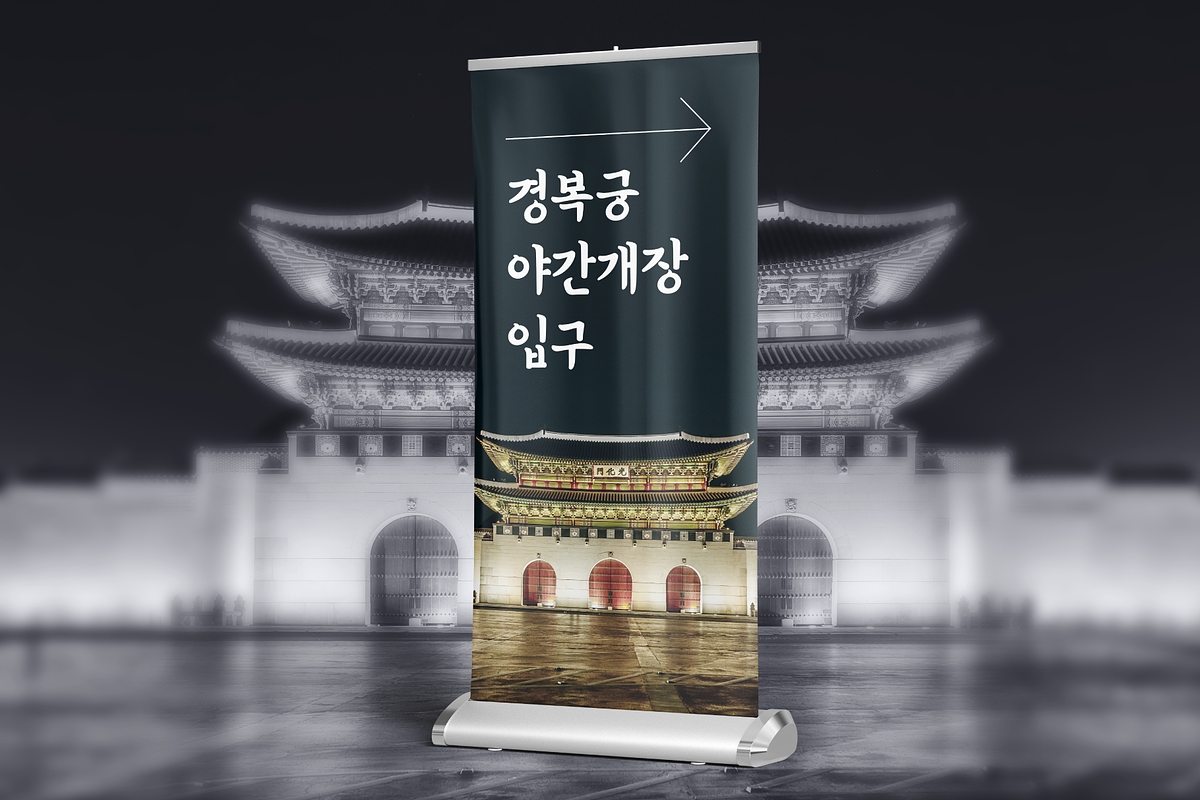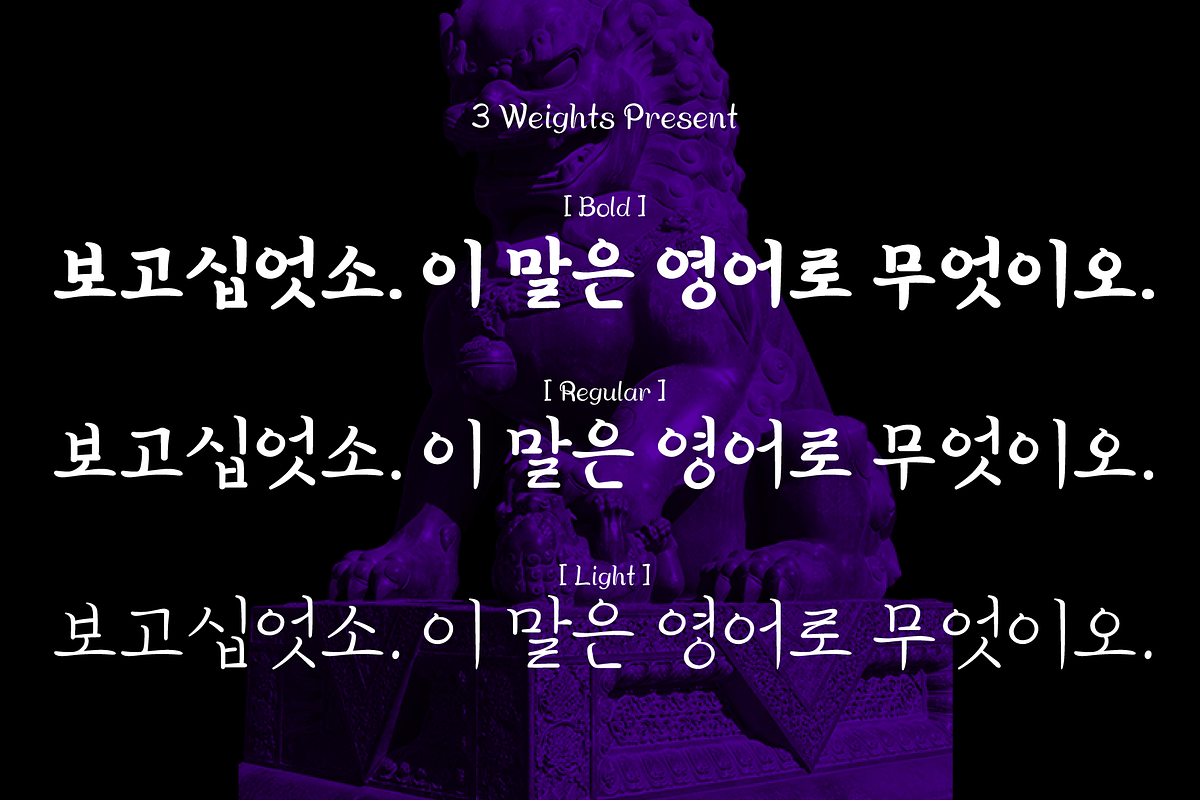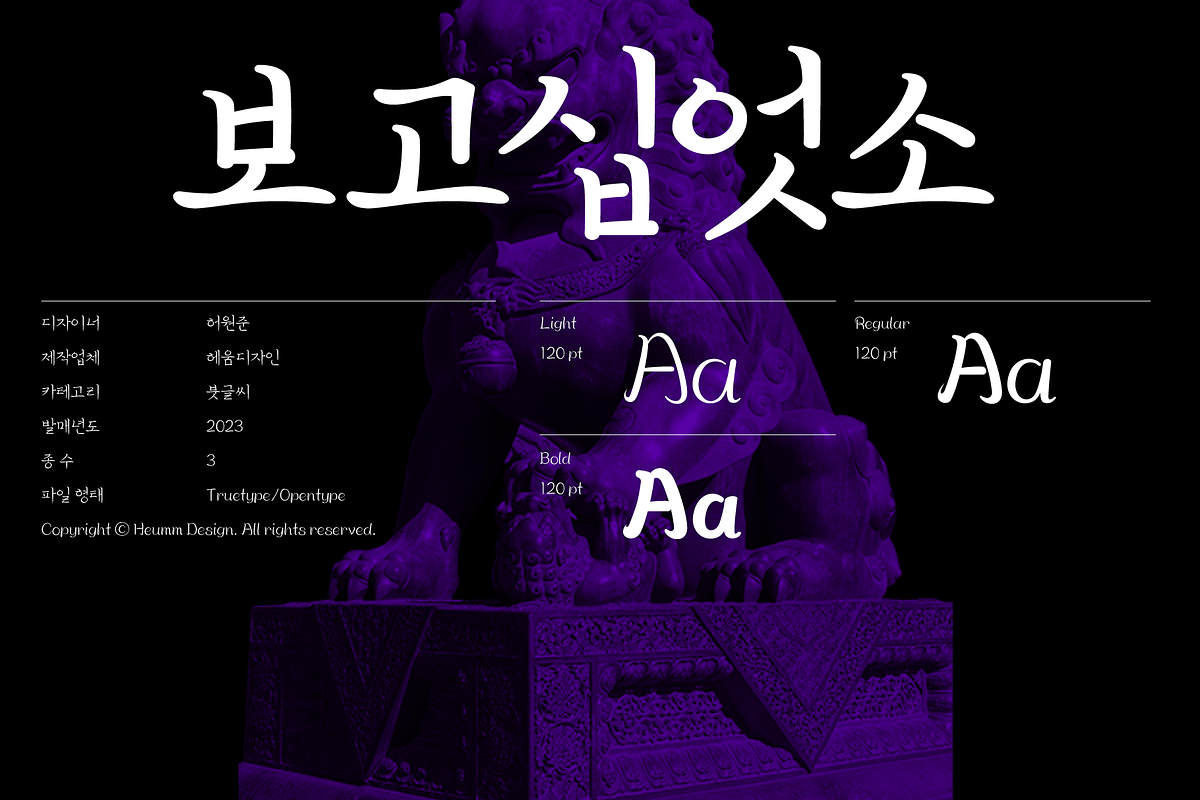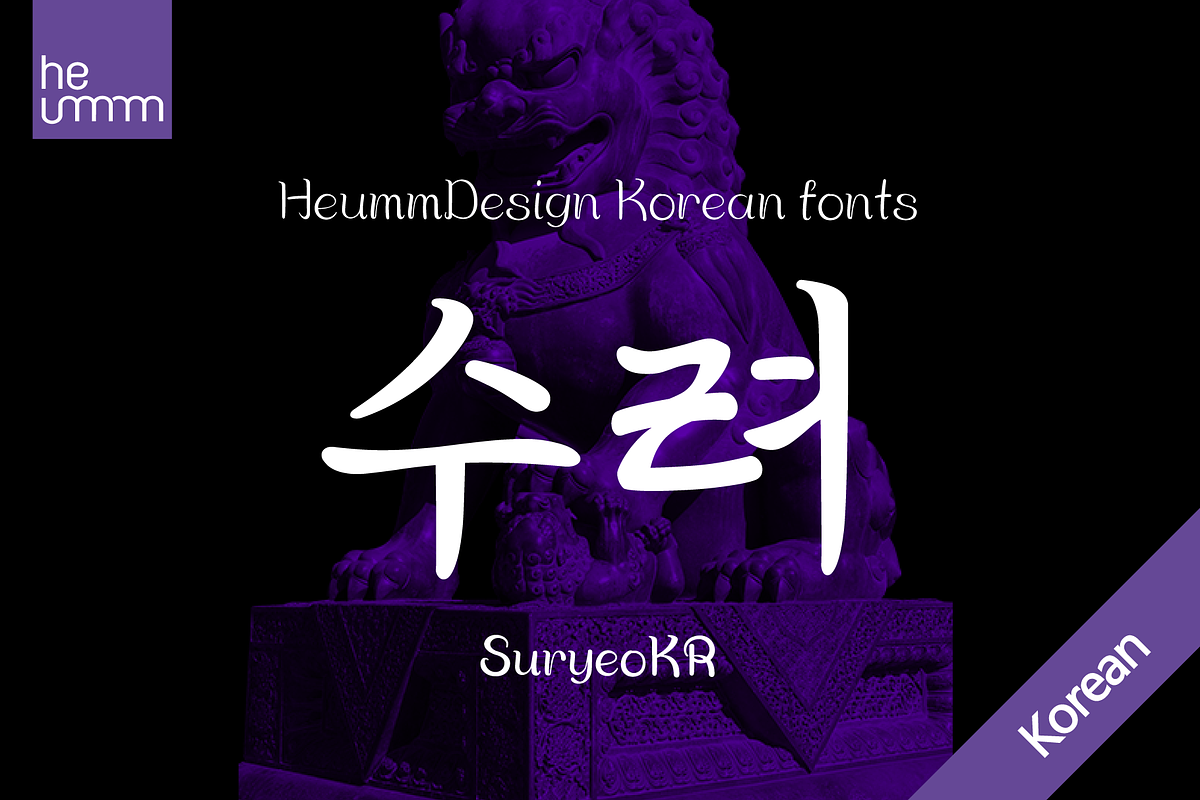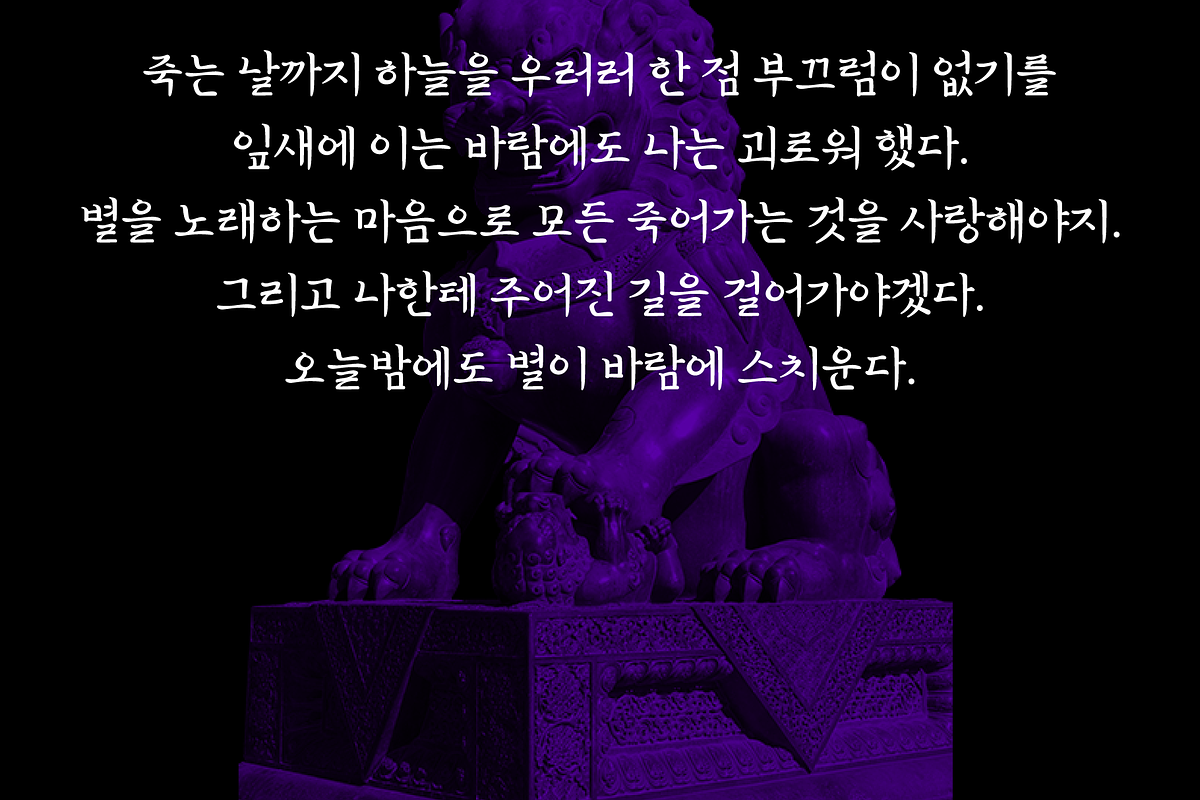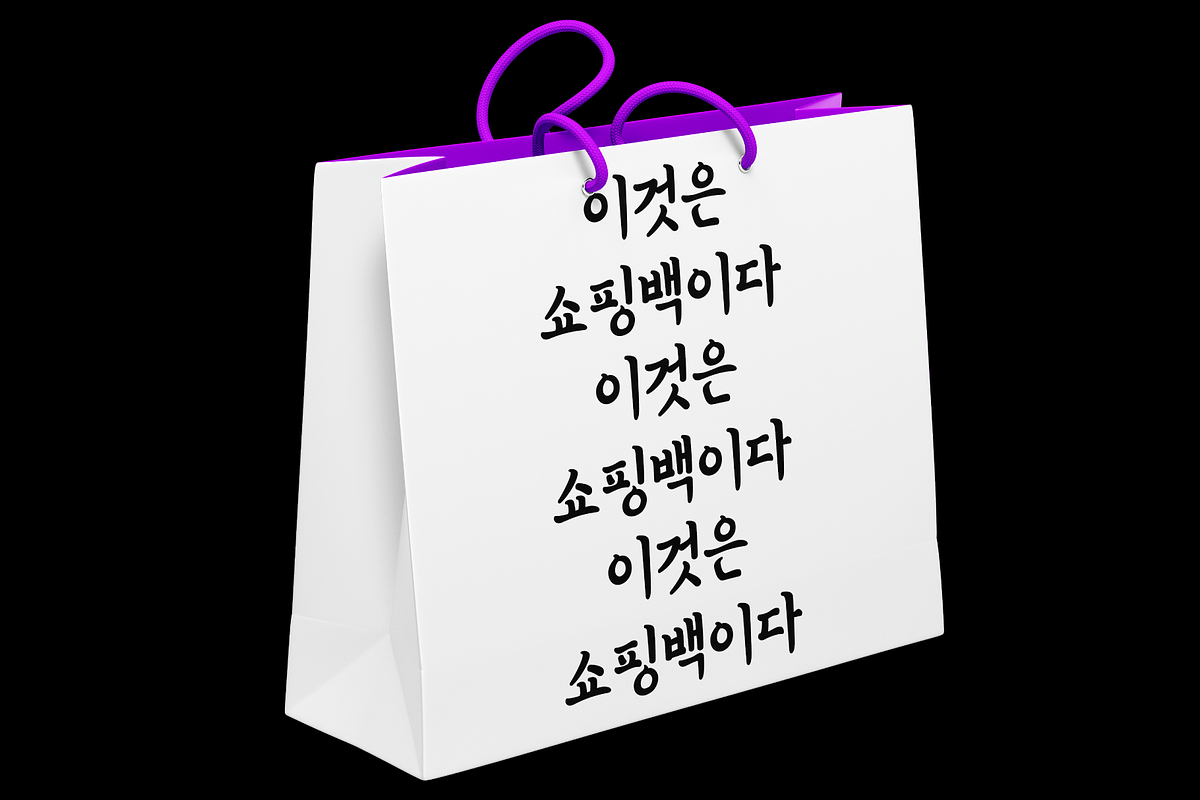
HU Suryeo KR is a new typeface of Heumm's calligraphy that takes the motif from carefully written calligraphy.
It follows the calligraphic shape of Korean classics and can be used for titles and body text without distinction. The stroke thickness, strength, and degree of bending were set differently for each style. The thinner it is, the sharper it is, and the thicker it is, the blunt and round it is.
HU Suryeo KR includes Korean.
There is 3 weight of HU Suryeo KR : Light, Regular, Bold